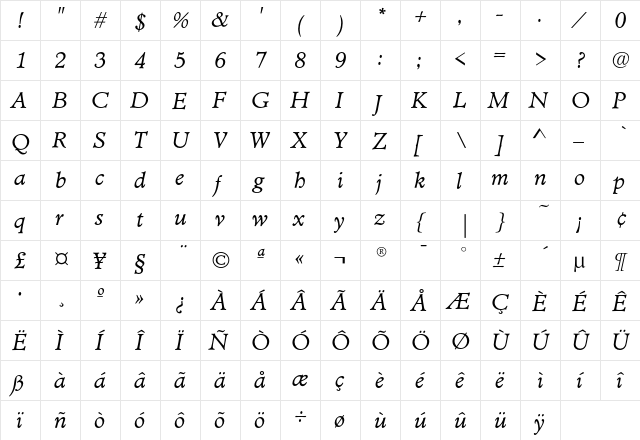
MinisterEF BookItalic
Design Context for MinisterEF Typeface
MinisterEF is a composed and adaptable typeface that performs quietly and consistently across a wide range of design contexts. Its italic angle brings a sense of urgency and motion to the letterforms.
Pro Tip: Try MinisterEF for annotation and caption copy alongside an upright companion — the contrast in angle creates a dynamic but ordered typographic system.